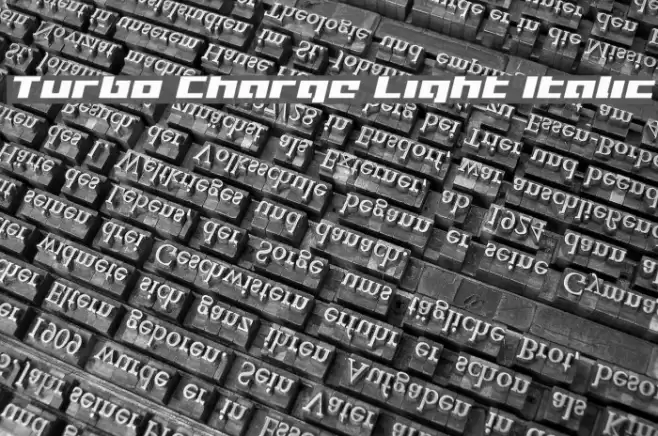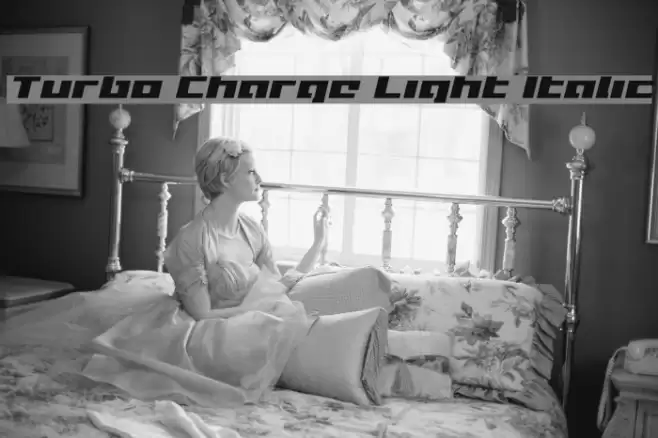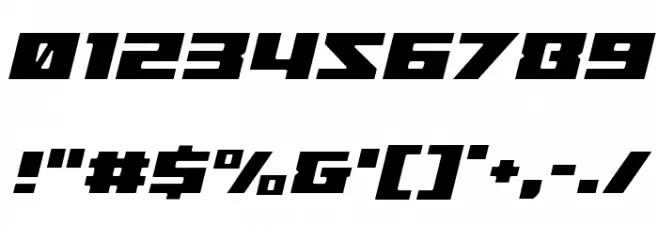
Turbo Charge Light Italic Font
Turbo Charge Light Italic Description
This font features a bold and dynamic design with a futuristic and angular appearance. The characters are sharply cut with a distinct slant, giving an impression of speed and movement. The uppercase and lowercase letters maintain a consistent style, with geometric shapes and a strong presence. The numbers and special characters follow the same design principles, ensuring uniformity across all glyphs. The overall look is modern and edgy, suitable for projects that require a sense of energy and innovation.
A bold, angular font with a futuristic and dynamic style from Sci-fi fonts.
- Proposed Projects: Ideal for automotive branding, tech company logos, sports team merchandise, and video game titles.
- Use Case: Logos, Headlines